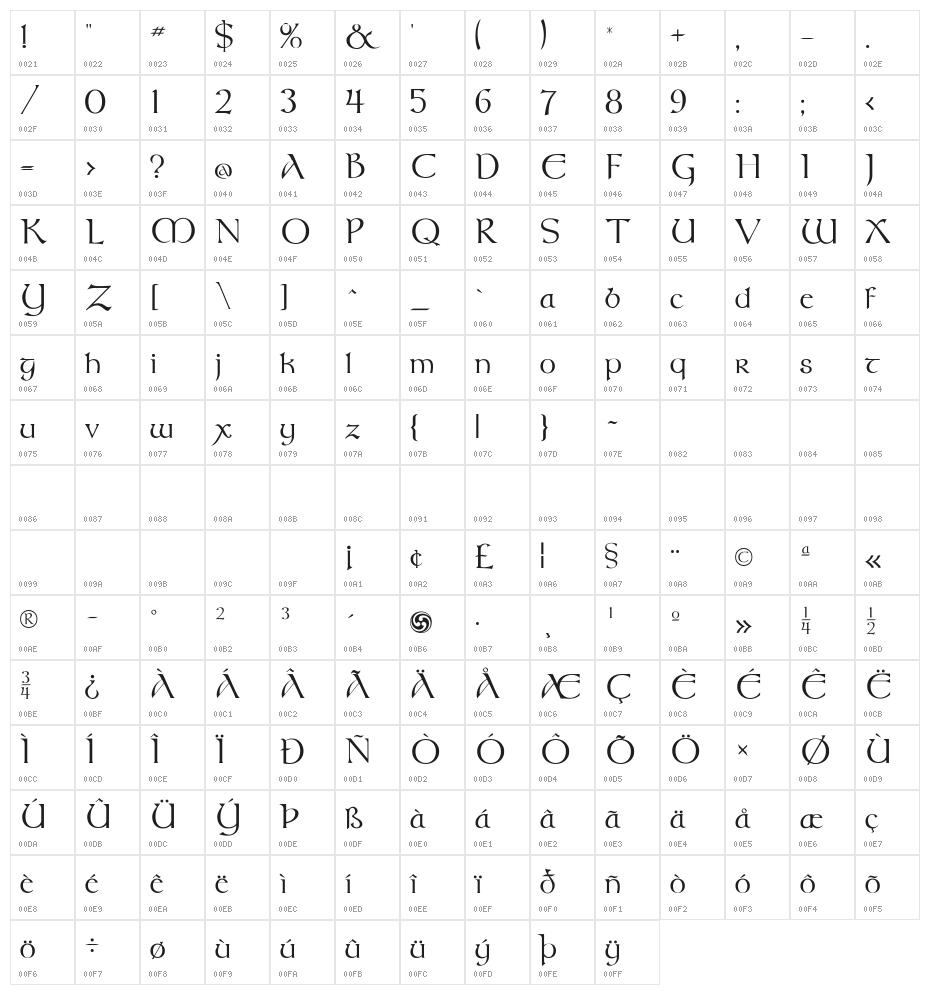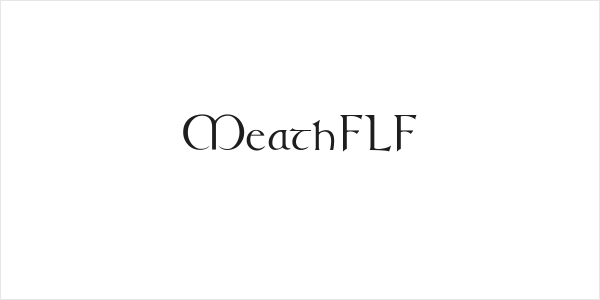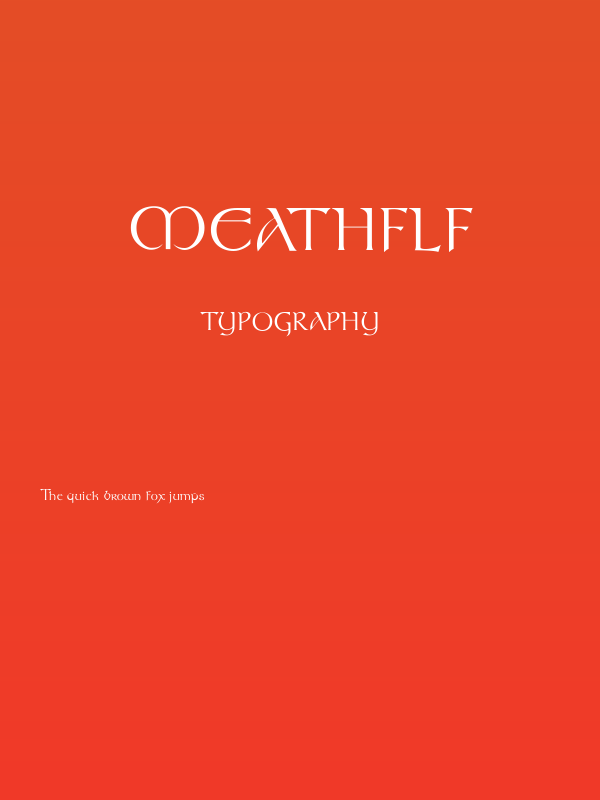
MeathFLF Font
MeathFLF Description
This font features a unique blend of modern and classic elements, characterized by its sharp, angular serifs and elegant curves. The uppercase letters exhibit a strong presence with their distinctive, pointed serifs and slightly condensed form, while the lowercase letters maintain a harmonious balance with a more rounded and softer appearance. The numerals are consistent with the overall style, offering a bold yet refined look. Special characters are crafted with the same attention to detail, ensuring a cohesive appearance across all glyphs. The font's high contrast between thick and thin strokes adds a dramatic flair, making it suitable for impactful designs.
| Proposed Projects | Perfect for branding, editorial design, book covers, and luxury product packaging. |